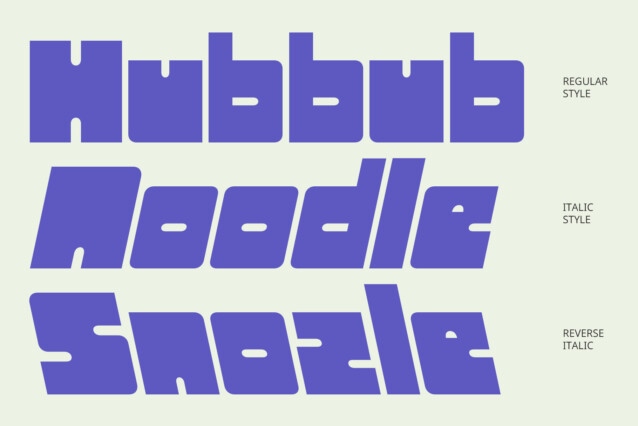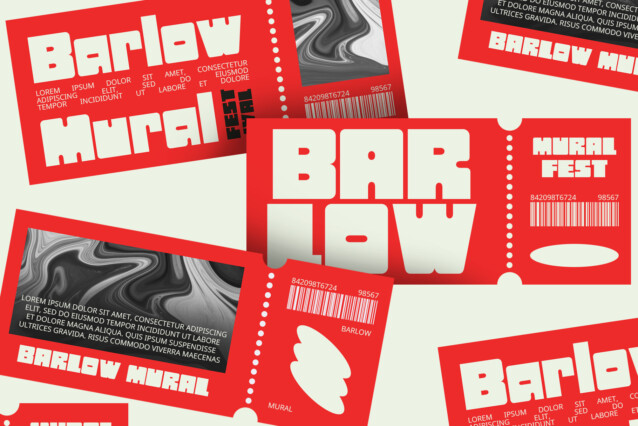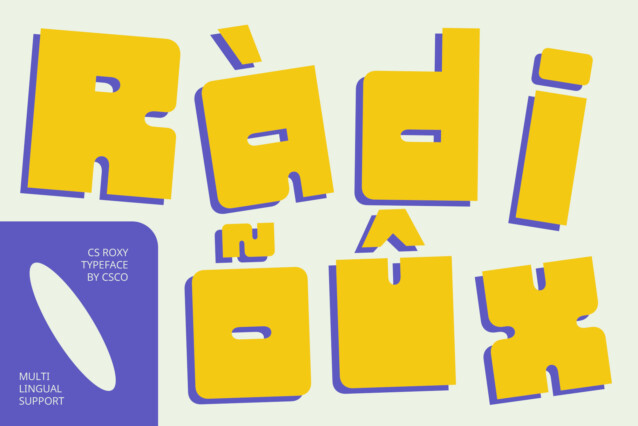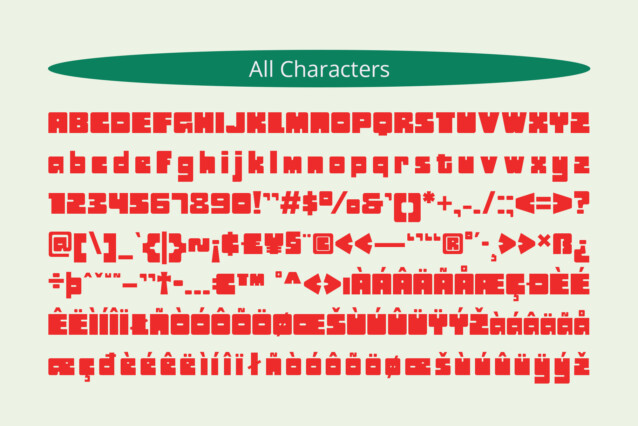
CS Roxy Font
CS Roxy Font, with its bold and funky style, offers a strong and energetic character. Its daring and playful design makes it ideal for grabbing attention in various creative projects.
Perfect for Posters, Advertisements, and Branding
CS Roxy’s bold design is perfect for posters, advertisements, and branding. The font exudes a cheerful and dynamic vibe, ensuring your messages stand out.